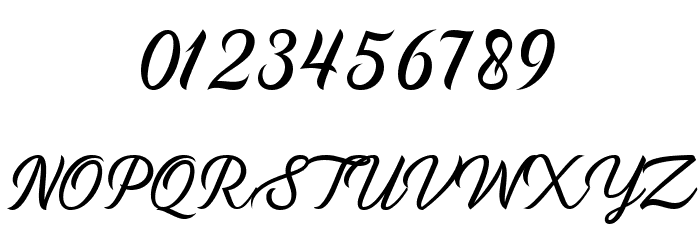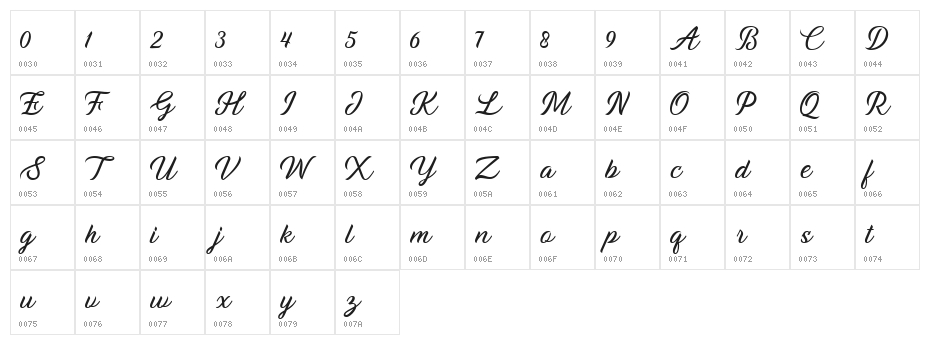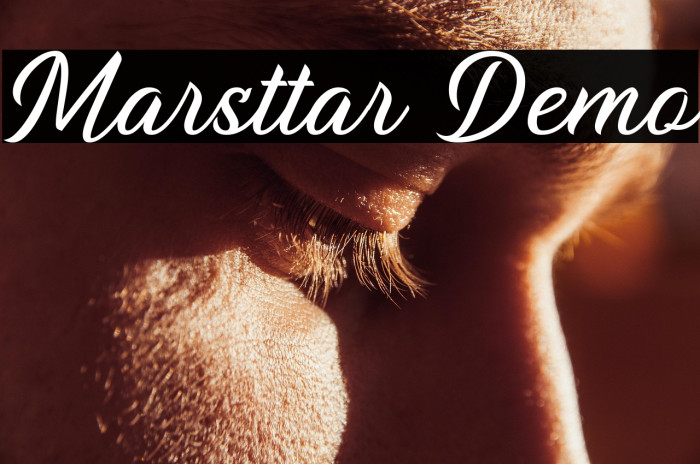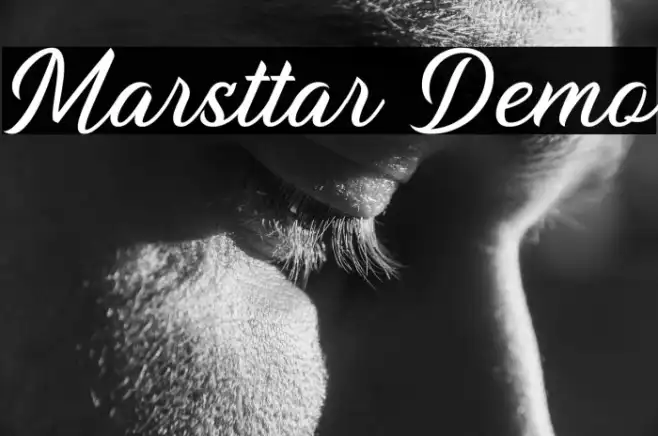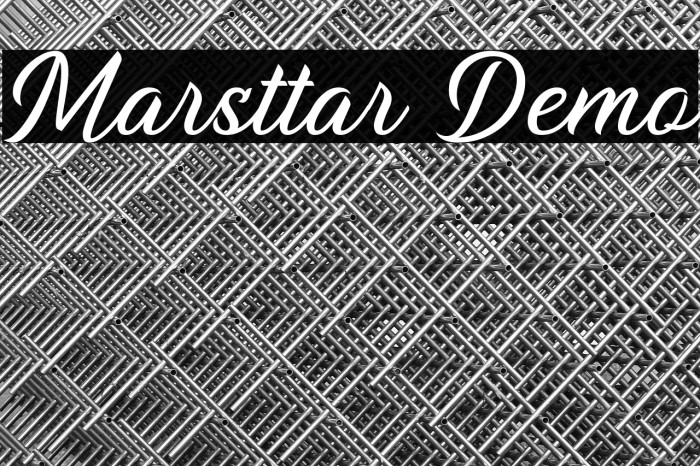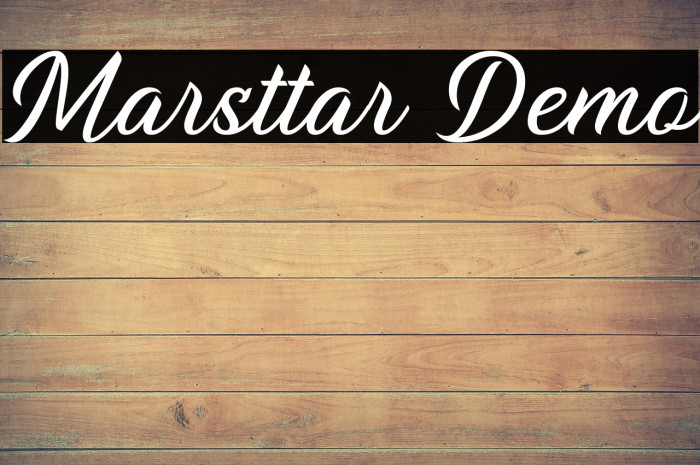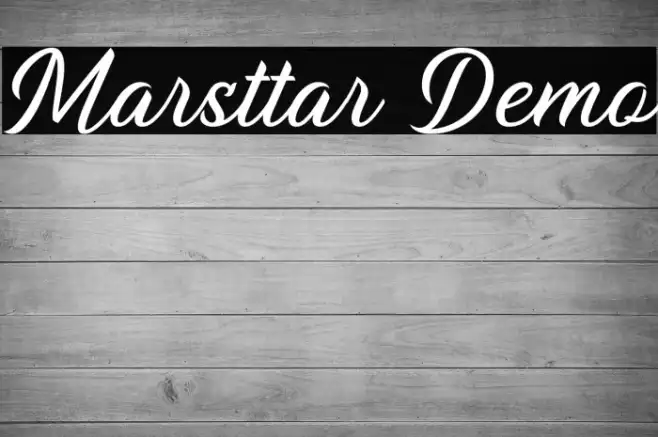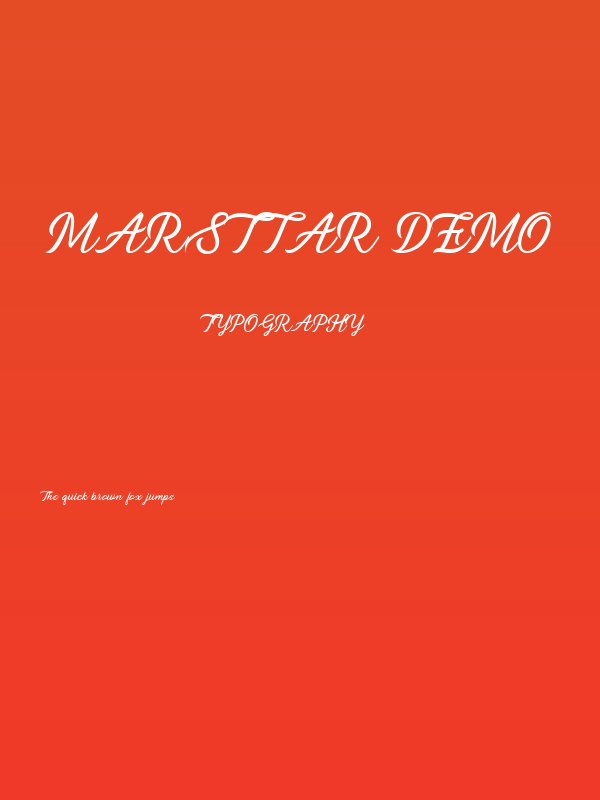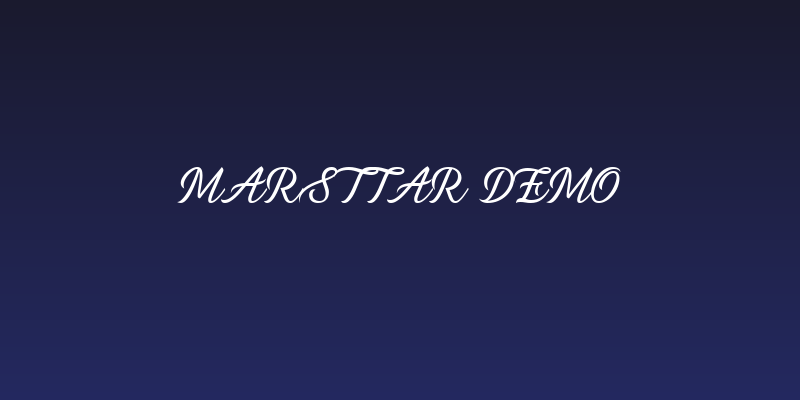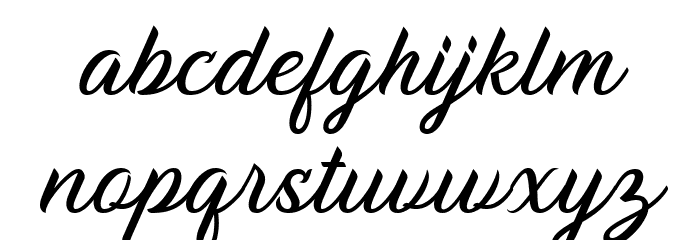
Marsttar Demo Font
Marsttar Demo Description
This elegant script font features a flowing, cursive style with smooth, connected strokes that create a sense of fluidity and grace. The uppercase letters are ornate and slightly larger, providing a striking contrast to the more subdued lowercase characters. The numerals maintain the same flowing style, ensuring consistency throughout. The font's design is reminiscent of traditional calligraphy, with a modern twist that makes it suitable for a variety of applications. Its legibility is enhanced by the moderate spacing between characters, allowing each letter to stand out while still maintaining a cohesive look.
Use CaseLogos, Invitations, Decorative text
Proposed ProjectsIdeal for wedding invitations, elegant branding, greeting cards, and decorative headings.